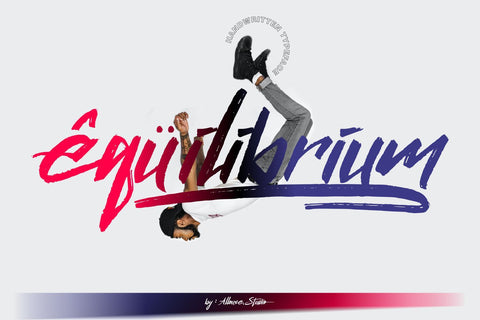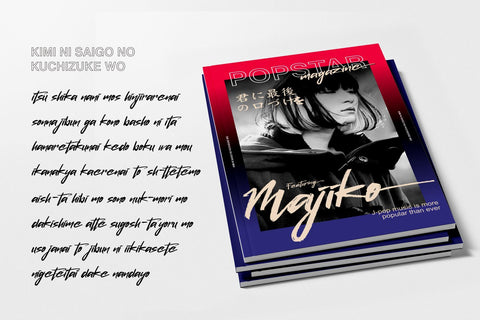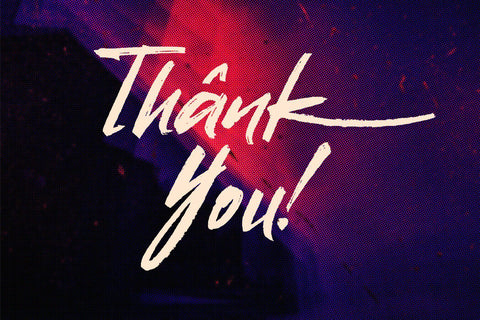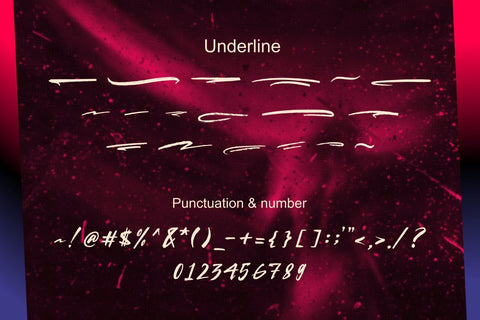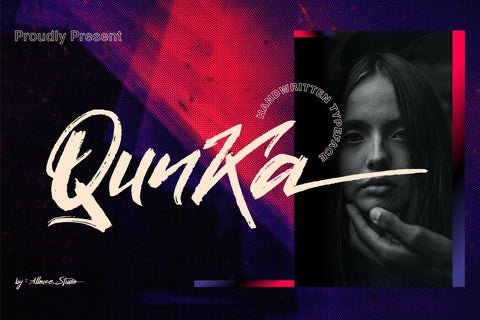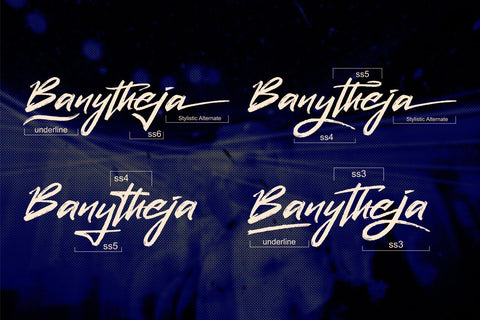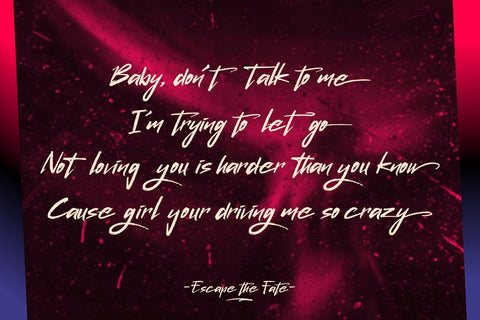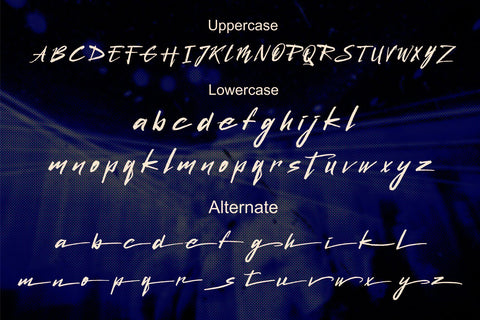
Qunka - Handwritten Typeface
Proudly Present, Qunka a Handwritten Typeface Font.
Qunka come along with Stylistic-Alternate and Multi-Lingual Support which will give you many choices to play around.
Qunka is perfect for any tittle, logo, product packaging, branding project, megazine, social media, wedding, or just used to express words above the background.